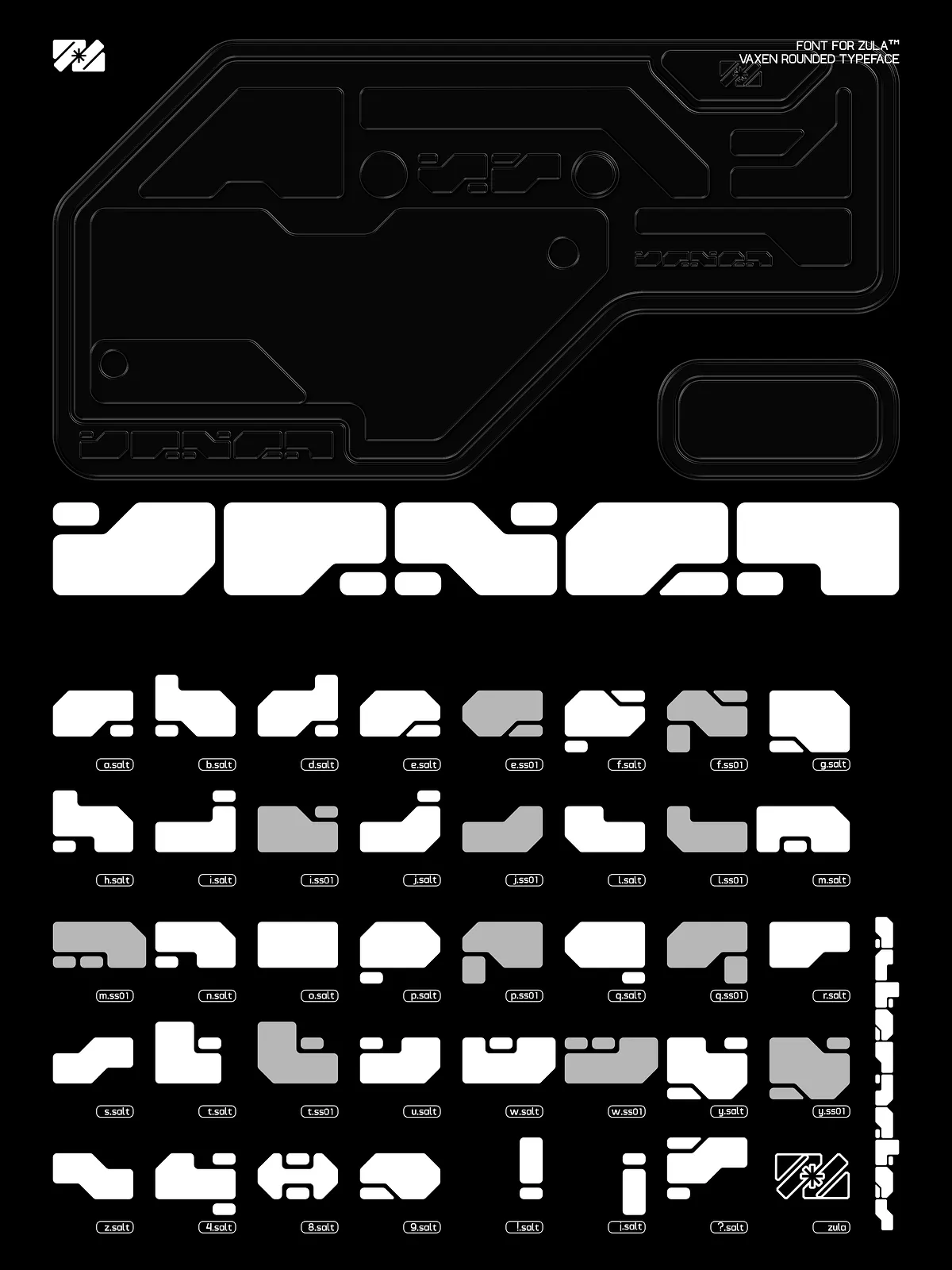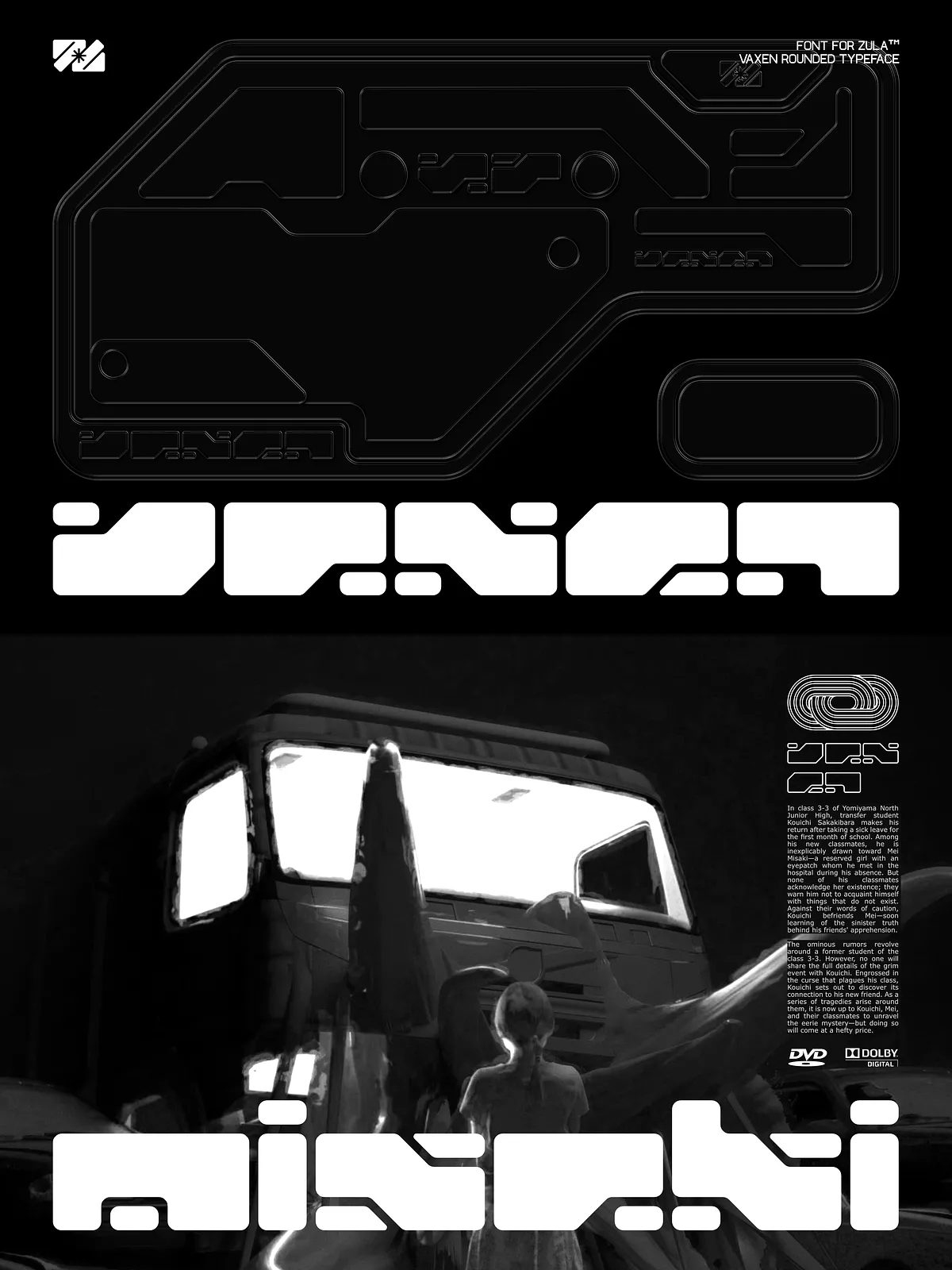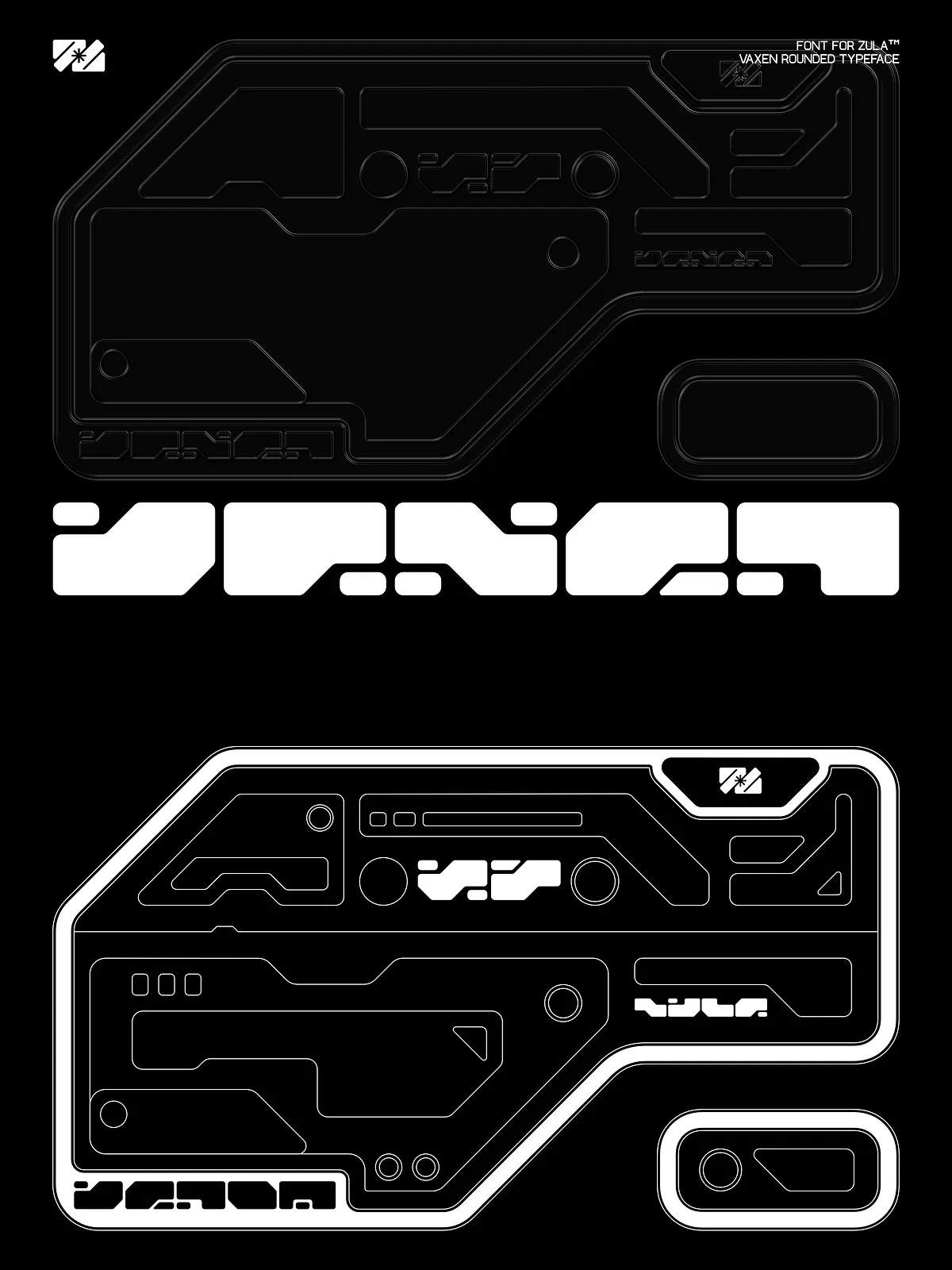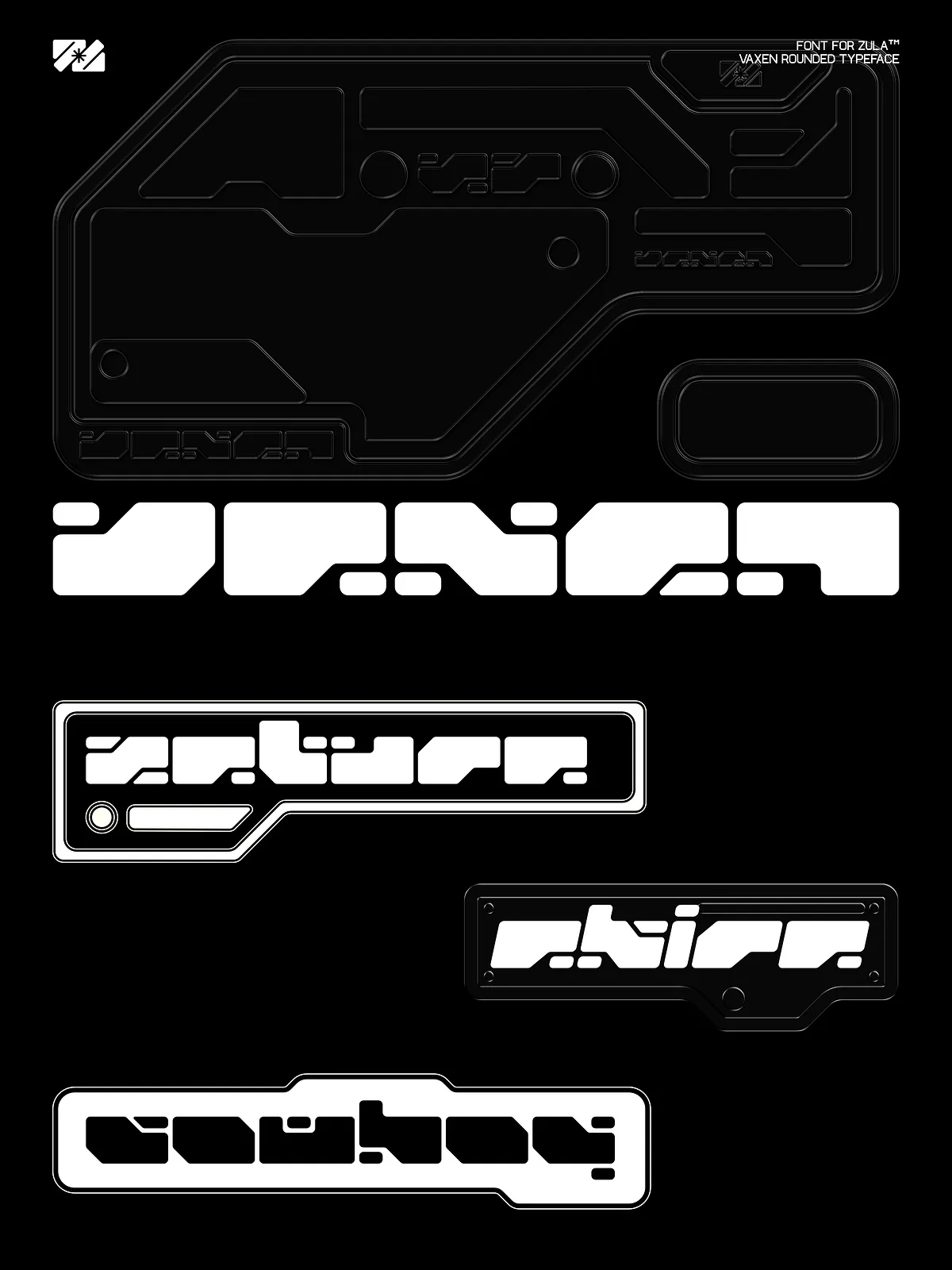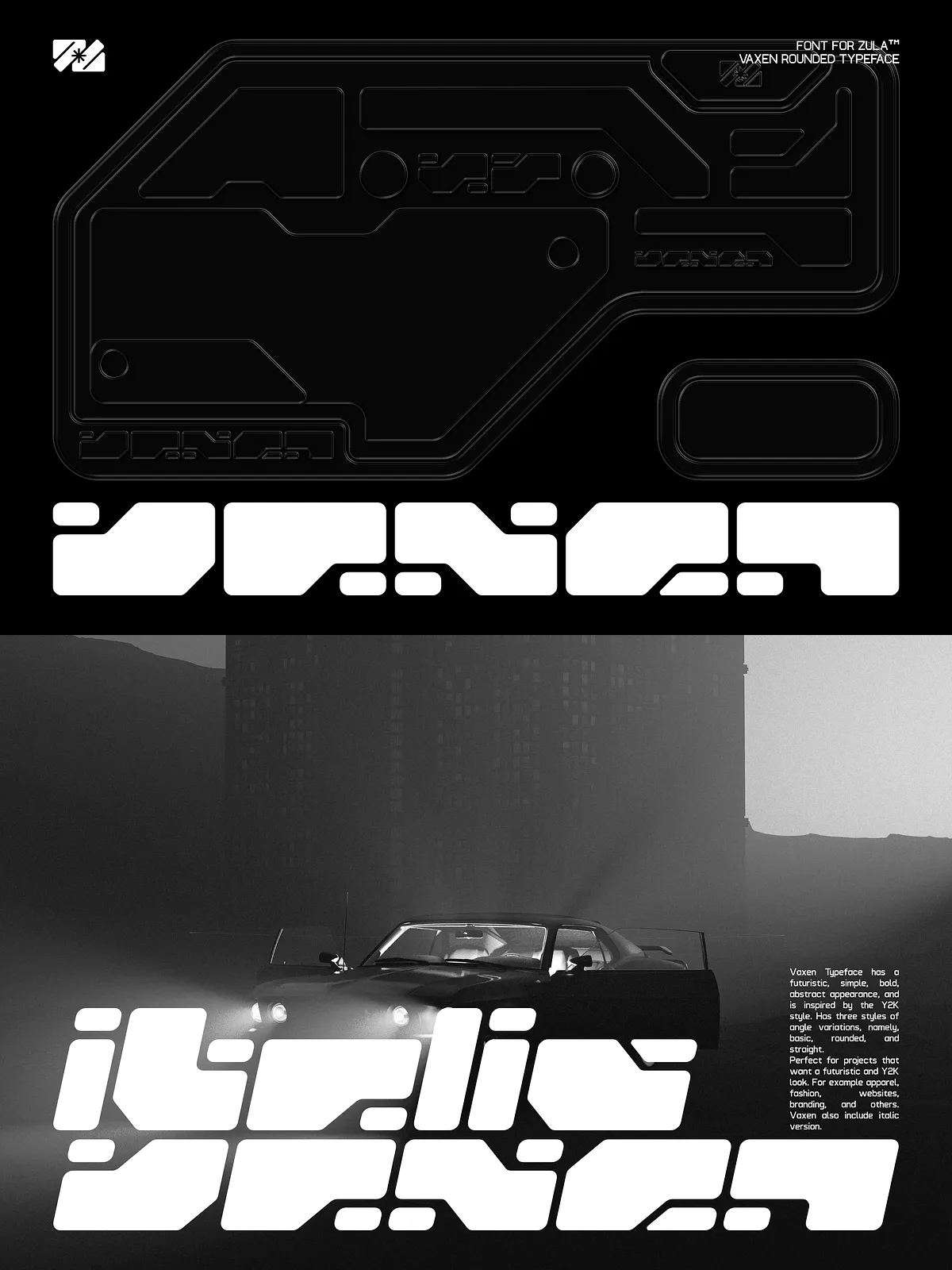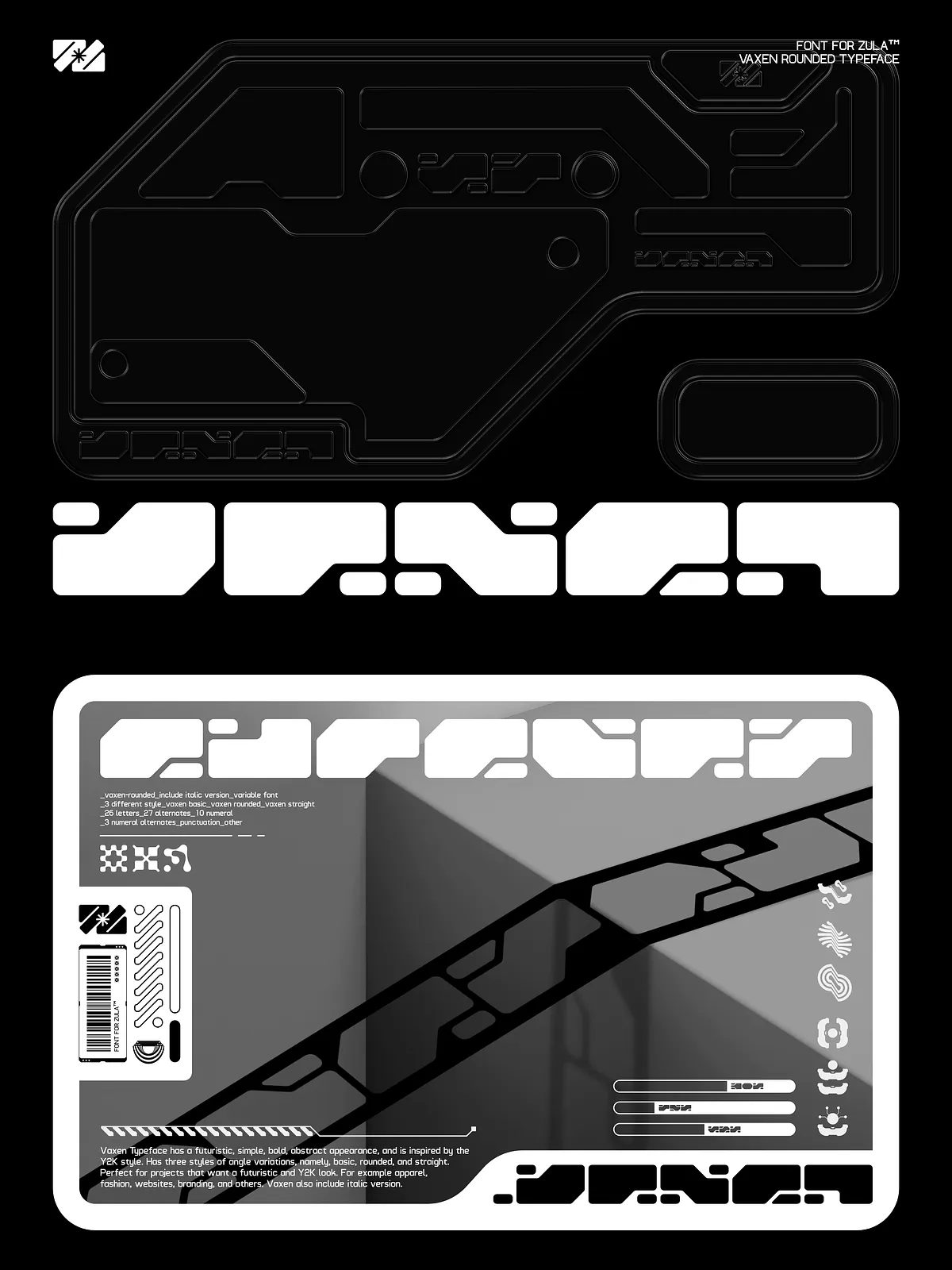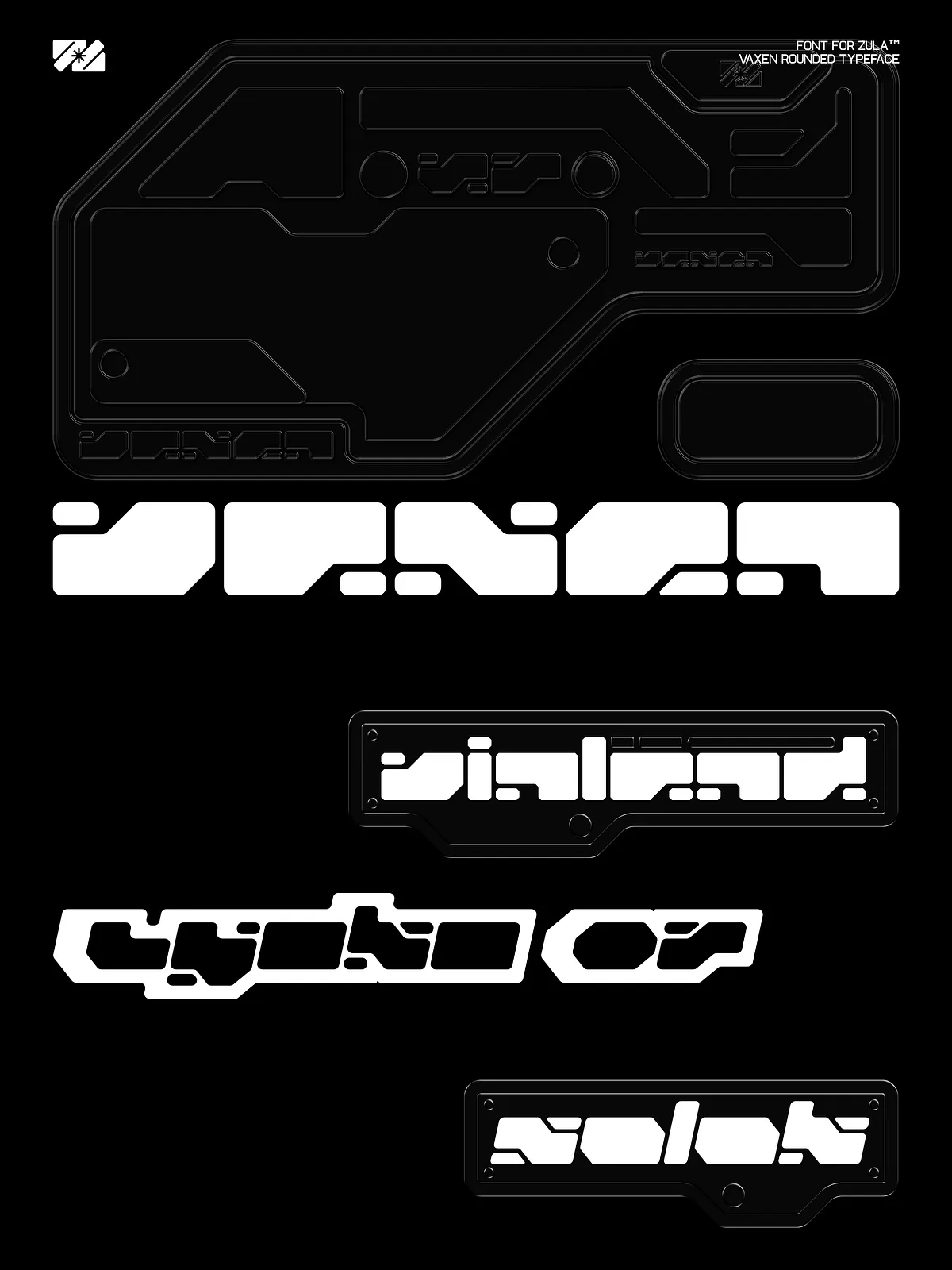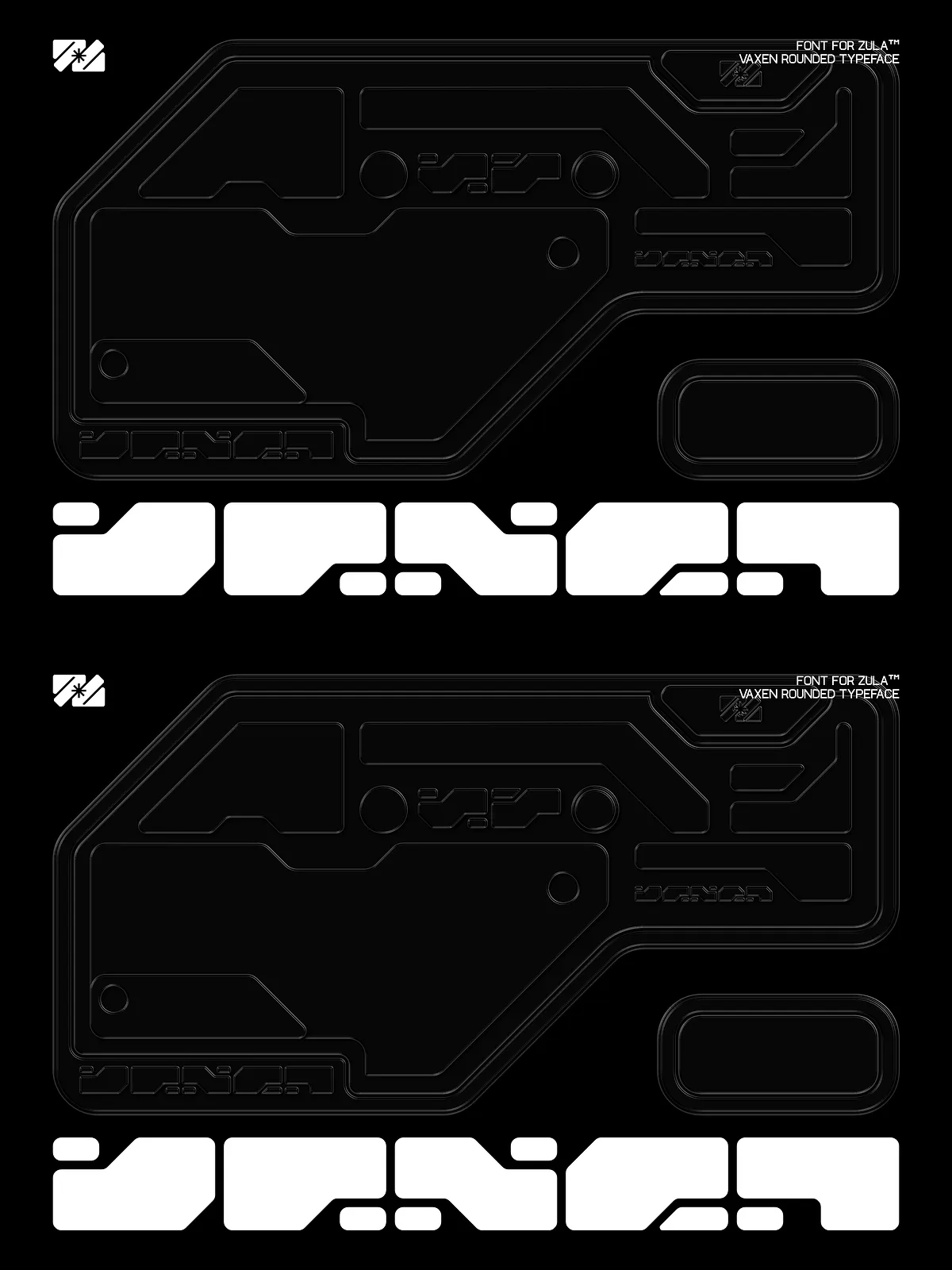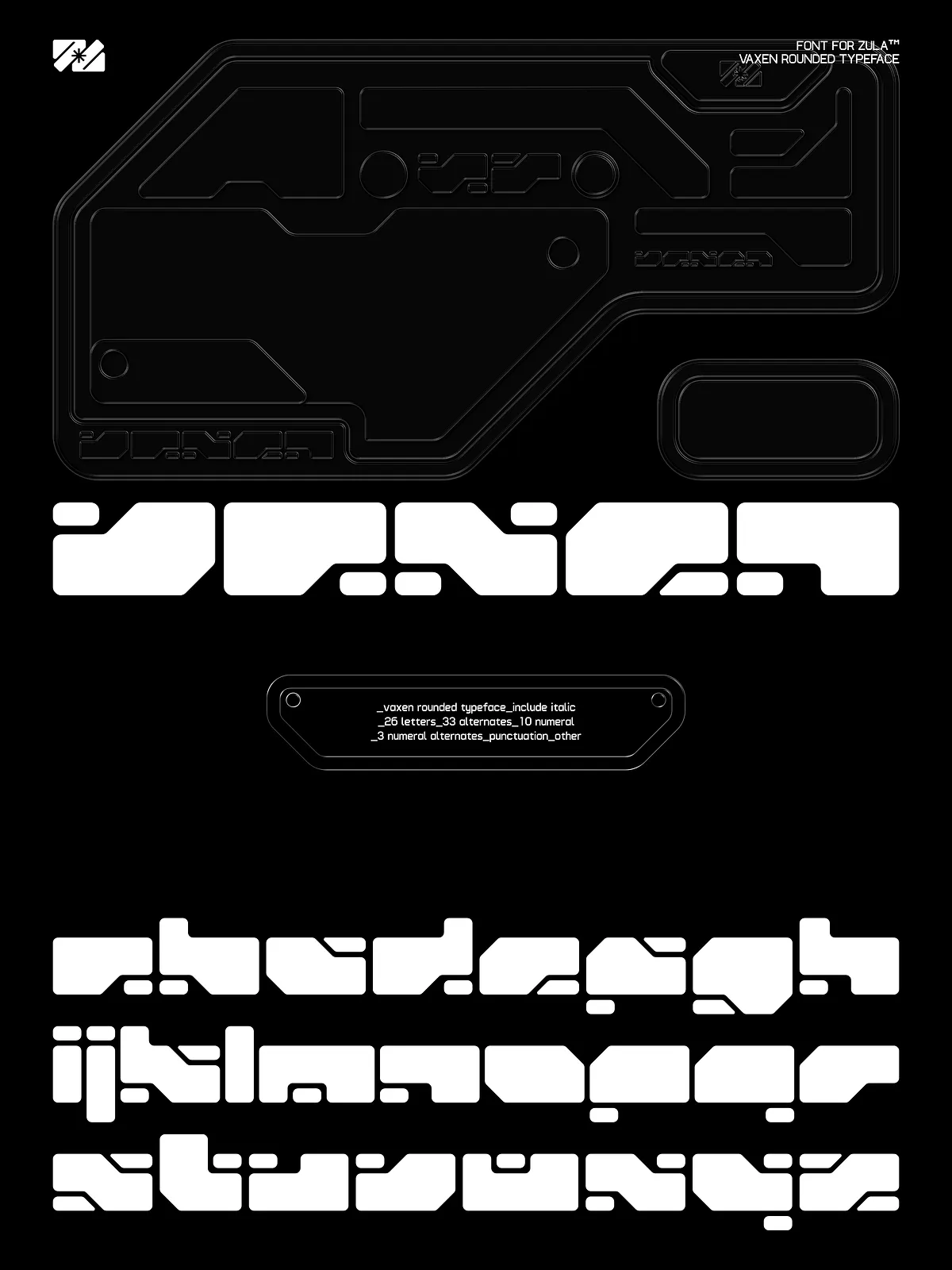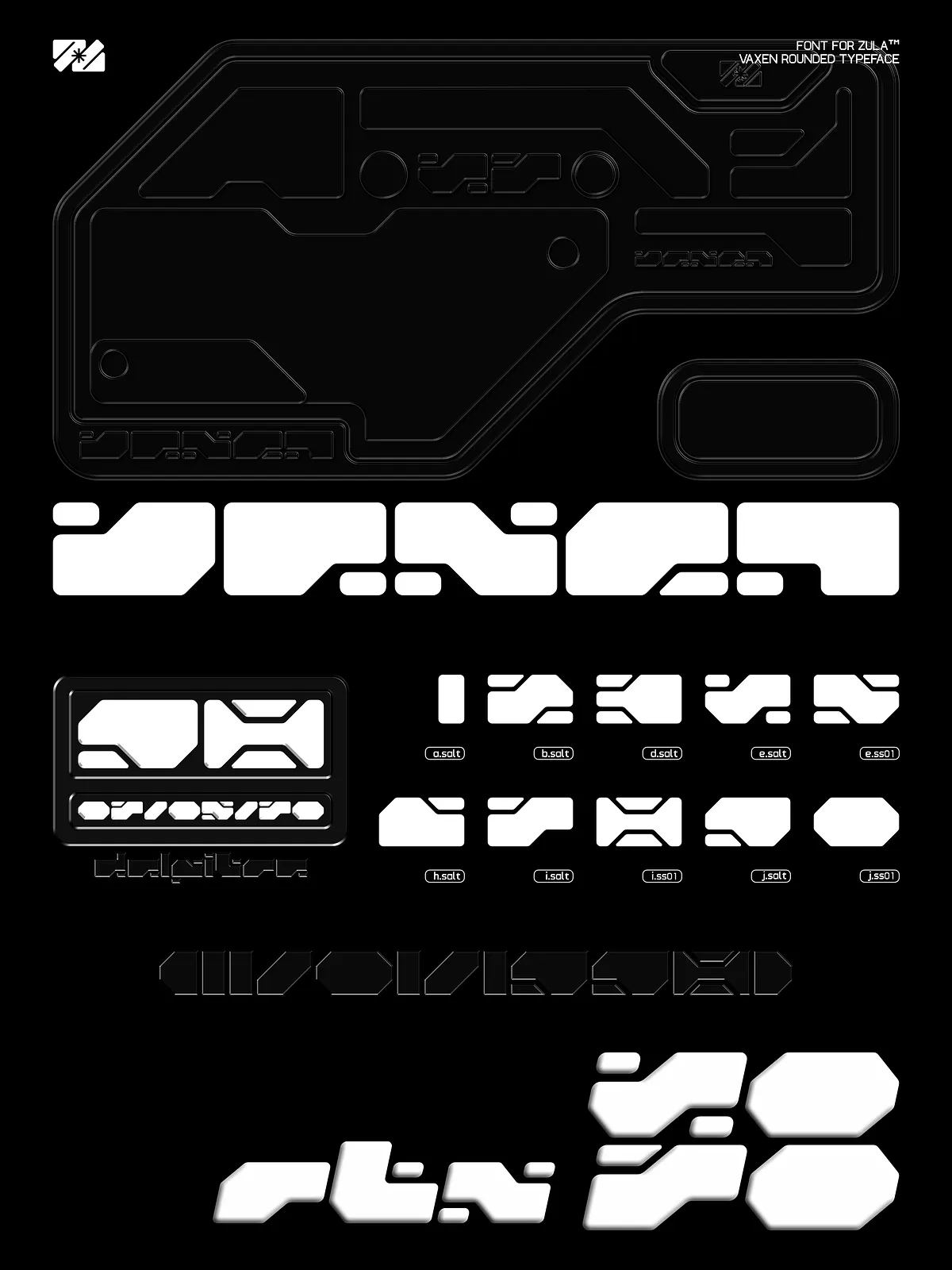
Meet Vaxen-Rounded, a dynamic, variable font that fuses Y2K nostalgia with modern design power. With its sleek, rounded geometry, bold presence, and abstract fluidity, Vaxen-Rounded isn’t just a font—it’s a statement. Whether you’re crafting a streetwear label, designing a high-energy website, or building a brand identity rooted in digital futurism, this typeface brings instant visual impact and cultural resonance.
Variable Innovation: Infinite Typography, One Font
Unleash limitless creativity with Vaxen-Rounded’s full variable font technology. Instead of being locked into a single style, you gain real-time control over weight, width, and optical size. Adjust from ultra-light to maximal bold, from narrow to wide, and fine-tune for screen or print—all within one file. This means:
- Smooth transitions in animations and interactive layouts
- Responsive text scaling that adapts perfectly across devices
- Design rhythm control—perfect for logos, headlines, or UI microcopy
- Reduced file size and simplified workflow
No more swapping between multiple font weights. One font. Infinite possibilities.
Italic Style — Where Bold Meets Flow
Enhance your design with the included Italic variant, crafted to complement the rounded structure with graceful slant and expressive fluidity. Perfect for emphasis, storytelling, or creating contrast in layouts. Use it for:
- Dynamic product tags (e.g., “Future Mode”)
- Taglines with a tech-poetic flair
- Vintage-cyberpunk social media posts
- Brand slogans that demand attention
Rich Glyph Library — Crafted for Creativity
Vaxen-Rounded is built for creators, not limitations. It includes:
- 26 uppercase and lowercase letters—clean, balanced, and distinct
- 33 stylistic alternates—add uniqueness without extra files
- 10 standard numerals—perfect for stats, pricing, and coding snippets
- 3 numeral alternates—introduce playful variations
- Comprehensive punctuation—commas, periods, brackets, ellipses, and more
- Special symbols and icons—ideal for digital art, branding, and web UI
Every character is optimized for clarity and visual harmony—vital when your text is the centerpiece of your design.
Perfect for High-Impact Creative Projects
Use Vaxen-Rounded to dominate in these creative arenas:
- Fashion & Apparel—logo prints, packaging, and merch with a retro-futuristic punch
- Branding & Identity—stand out in tech, gaming, music, or lifestyle brands
- Web & App Design—headlines, buttons, and hover effects with kinetic energy
- Digital Art & NFTs—add typographic flair to generative visuals and metaverse assets
- Social Media & Content Creators—thumbnails, post headers, and quote graphics that pop
- Event & Festival Graphics—perfect for futuristic themes like raves, tech expos, and pop-up shops
The Future Is Rounded. And It’s Now.
Vaxen-Rounded isn’t just a font—it’s a design philosophy. It’s for creators who believe bold typography shouldn’t be static. Who want to blend the energy of Y2K with the power of today’s tools. Who demand both style and substance.